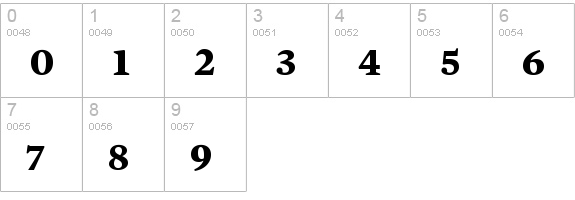
Mercury Text G4 Bold SC Font Details
Mercury Text G4 Bold SC is a strong, high-contrast variant in the Mercury typeface family \xE2\x80\x94 well suited to headlines, attention-grabbing titles, and strong calls-to-action.
Mercury Text G4 Bold SC font is a versatile and modern typeface that exudes confidence and sophistication. Its bold weight is perfect for making a strong statement in headlines, titles, and other prominent text elements. The small caps variant adds a touch of elegance and uniqueness to any design project. This font is ideal for creating eye-catching branding materials, editorial designs, posters, and more. Its clean lines and sharp edges make it highly legible, even at small sizes. Whether you're designing for print or digital media, Mercury Text G4 Bold SC font is sure to make a lasting impression. Best of all, this premium font is available for free download at FontsMarket.com. Don't miss out on the opportunity to enhance your designs with the timeless appeal of Mercury Text G4 Bold SC font. Download it today and take your projects to the next level!